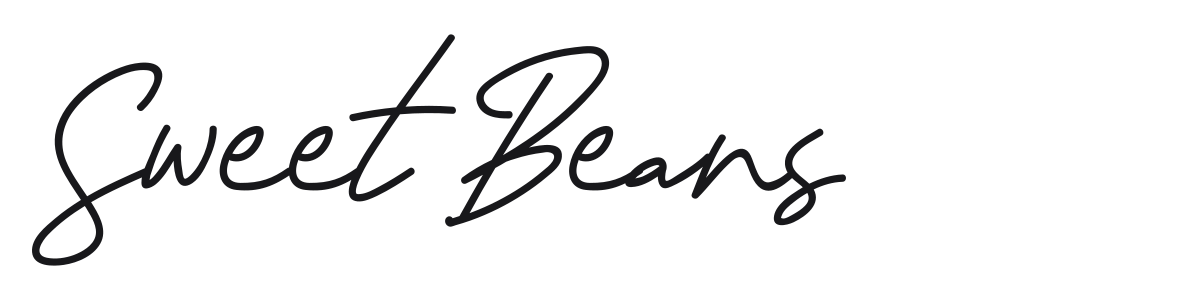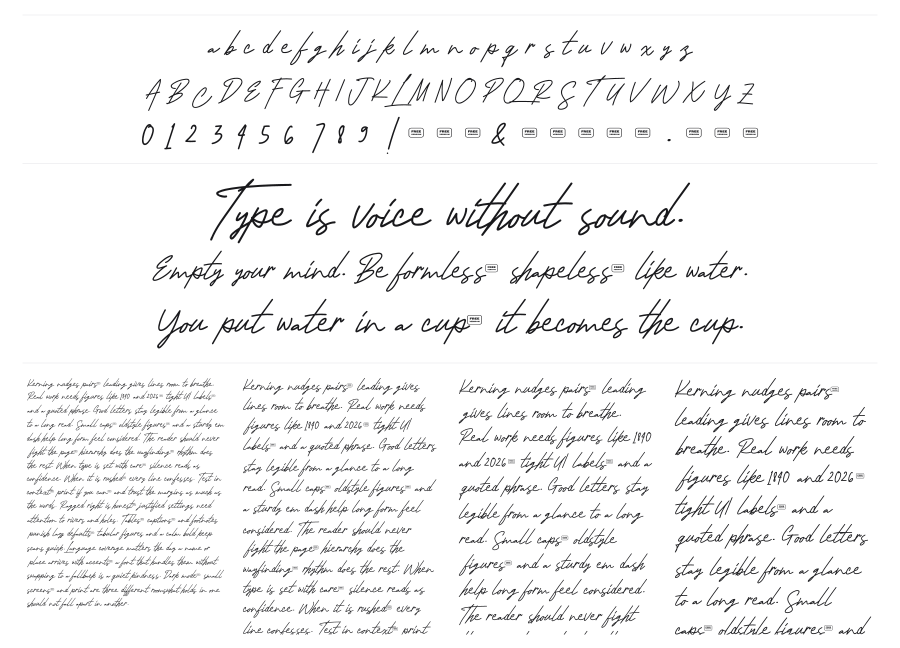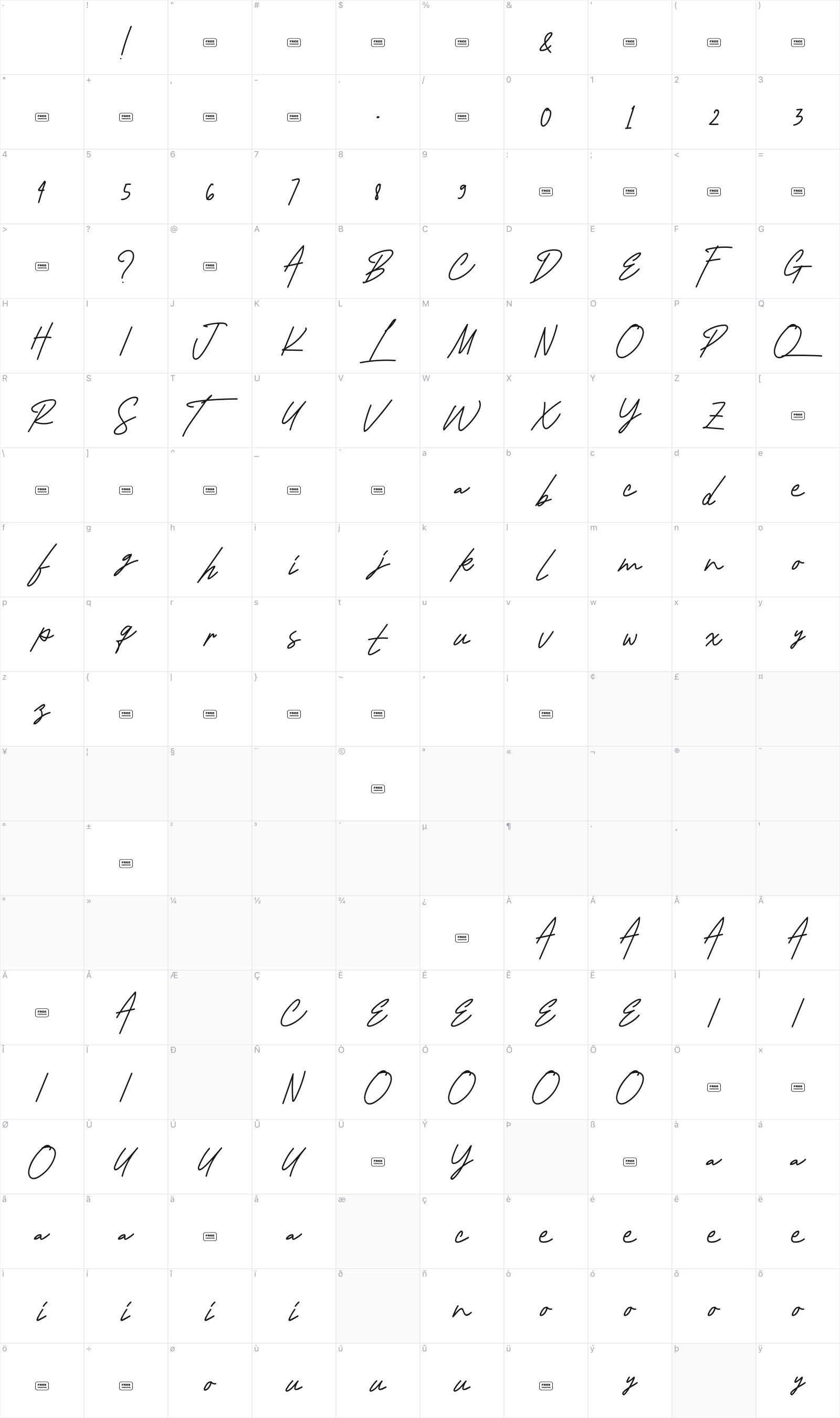
Sweet Beans
Sweet Beans is a casual monoline script with a flowing, connected hand and subtle calligraphic roots. Long sweeping strokes link each letter naturally, striking a balance between refined and effortless that works across stationery, branding, and titles. It feels handwritten without looking rushed.